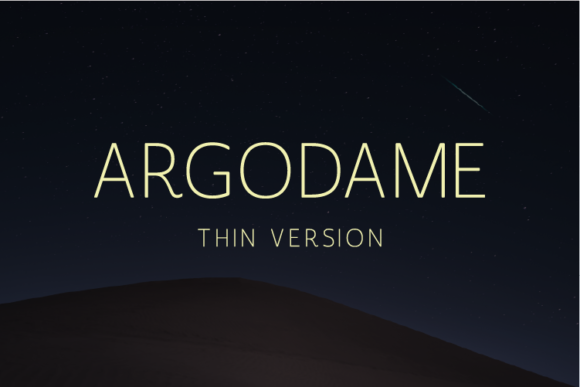
The Designer’s Delight: Uncovering the Charm of Argodame Thin Font
I’ll never forget the time I was working on a branding project for a new coffee shop. My client wanted a font that was friendly, modern, and would appeal to a wide audience. I spent hours scouring through font libraries, but nothing seemed quite right. That was until I stumbled upon Argodame Thin Font. Its soft, rounded terminals and clean lines immediately caught my eye, and I knew I had found the perfect fit. In this article, I’ll share my experience with Argodame Thin Font, its features, and how to make the most of it in your designs.
A First Impression: What I Love About Argodame Thin Font
Argodame Thin Font is a rounded sans serif that exudes a friendly and expressive vibe. Here are some things that I love about it:
- ✨ Modern and contemporary style: Argodame Thin Font has a sleek, modern look that’s perfect for headlines, logotypes, and branding.
- ✅ Classic proportions: Despite its modern style, Argodame Thin Font has classic proportions that make it highly legible and versatile.
- 🌈 Soft terminals: The soft terminals give Argodame Thin Font a friendly and approachable feel that’s perfect for designs that need a human touch.
- 📚 Multipurpose: Argodame Thin Font is suitable for a wide range of design projects, including books, magazines, motion graphics, and more.
While Argodame Thin Font is an excellent choice for many design projects, there are a few quirks to be aware of:
- 🤔 Limited contrast: Argodame Thin Font has a relatively low contrast between its thick and thin strokes, which can make it less suitable for designs that require a high level of visual hierarchy.
- ⚠️ Glyph limitations: While Argodame Thin Font has a wide range of glyphs, it may not have every special character or symbol you need. Be sure to check the font’s glyph set before committing to it.
The Story Behind Argodame Thin Font
Argodame Thin Font was designed by a team of typographers who wanted to create a font that was both modern and approachable. Inspired by classic sans serif fonts, they added a touch of softness to the terminals to give it a friendly vibe. The result is a font that’s perfect for designs that require a human touch.
| Font Name | Argodame Thin Font |
| Author | Nan Design |
| What is Argodame Thin Font? | Argodame Thin Font is a rounded sans serif font that’s designed for modern designs. It features soft terminals that give it a friendly and expressive look. |
| What is Argodame Thin Font best used for? | Argodame Thin Font is suitable for a wide range of design projects, including headlines, logotypes, branding, books, magazines, motion graphics, and more. |
| Is Argodame Thin Font available in different weights? | Yes, Argodame Thin Font is available in different weights, including thin, light, regular, medium, and bold. |